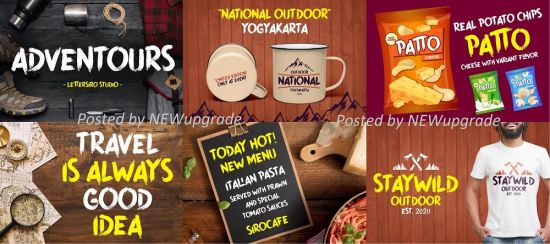
Adventours is young spirit font. This is multi purpose font, very good for any advertisement and packaging, or apparel/fashion.
Features :
Standar Ligatures
Multilingual Support